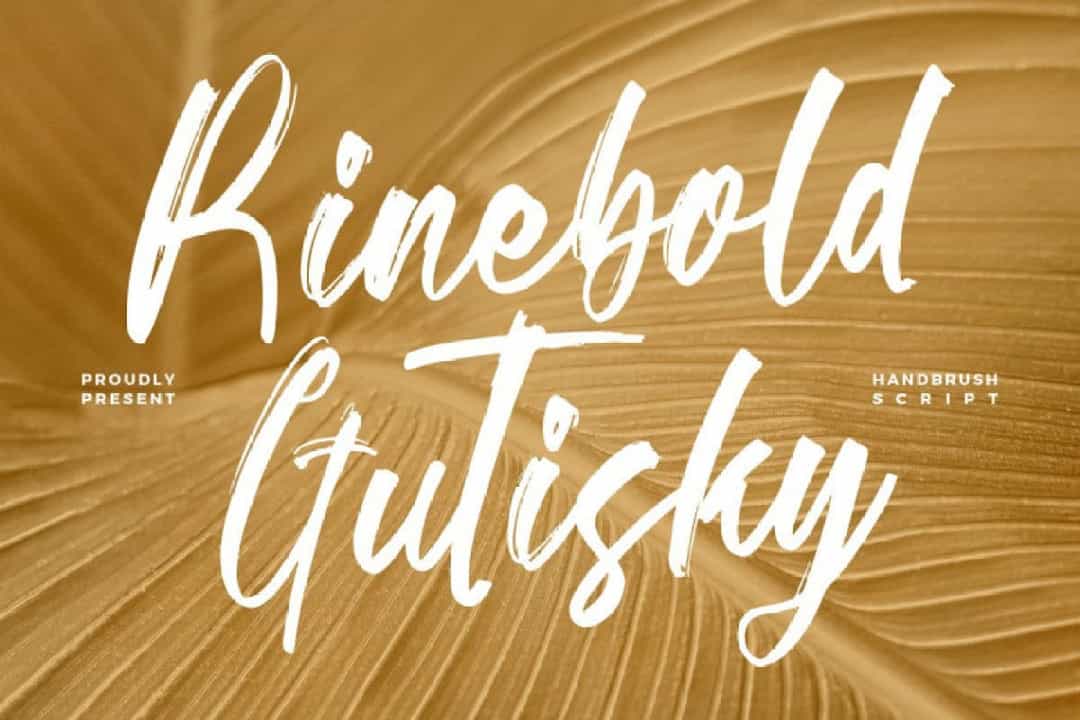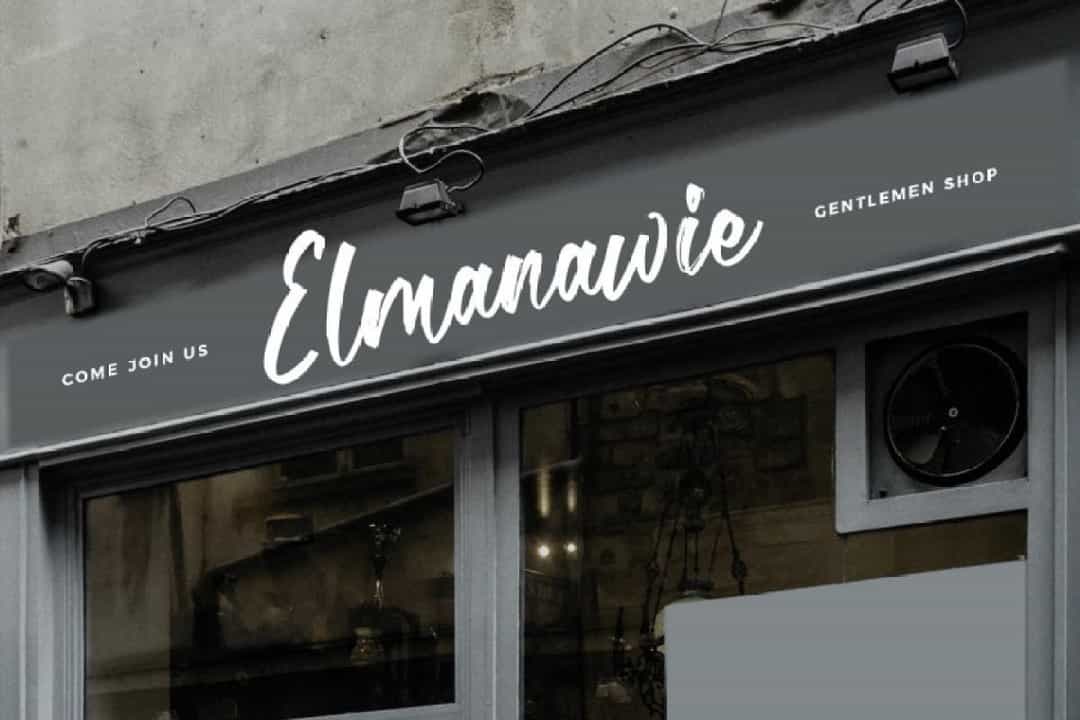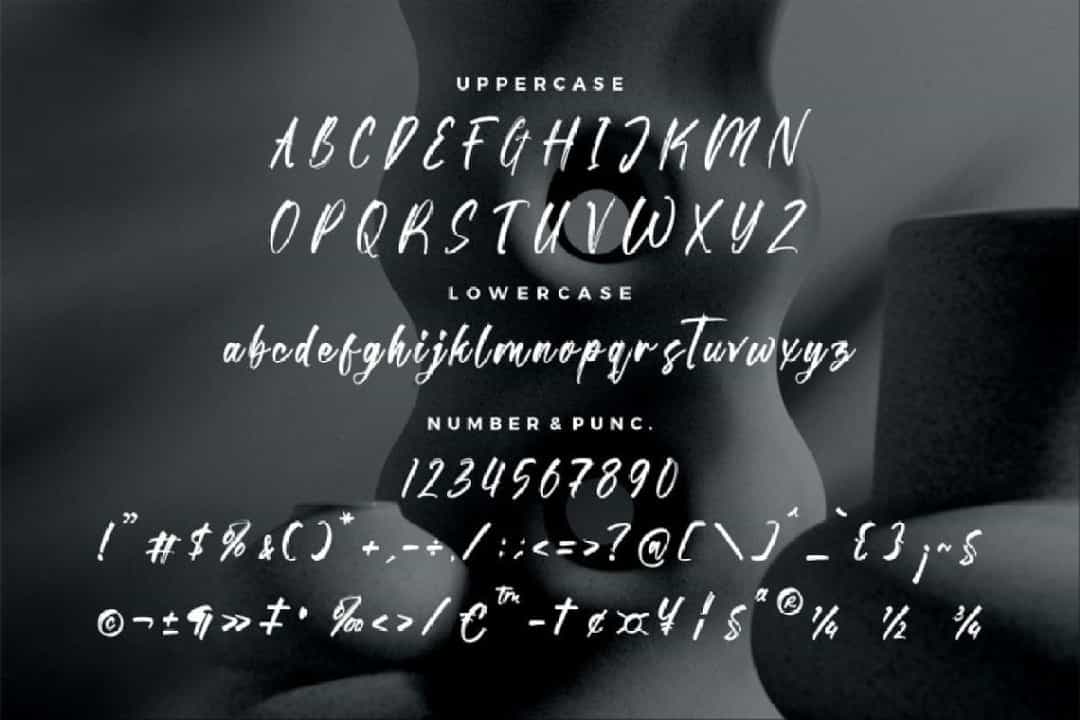
Rinebold Gutisky is an elegant and delicate handwritten script font. With its distinctive characters that create its unique beauty, this font will have you mesmerized! Use its amazing versatility to craft stunning designs!